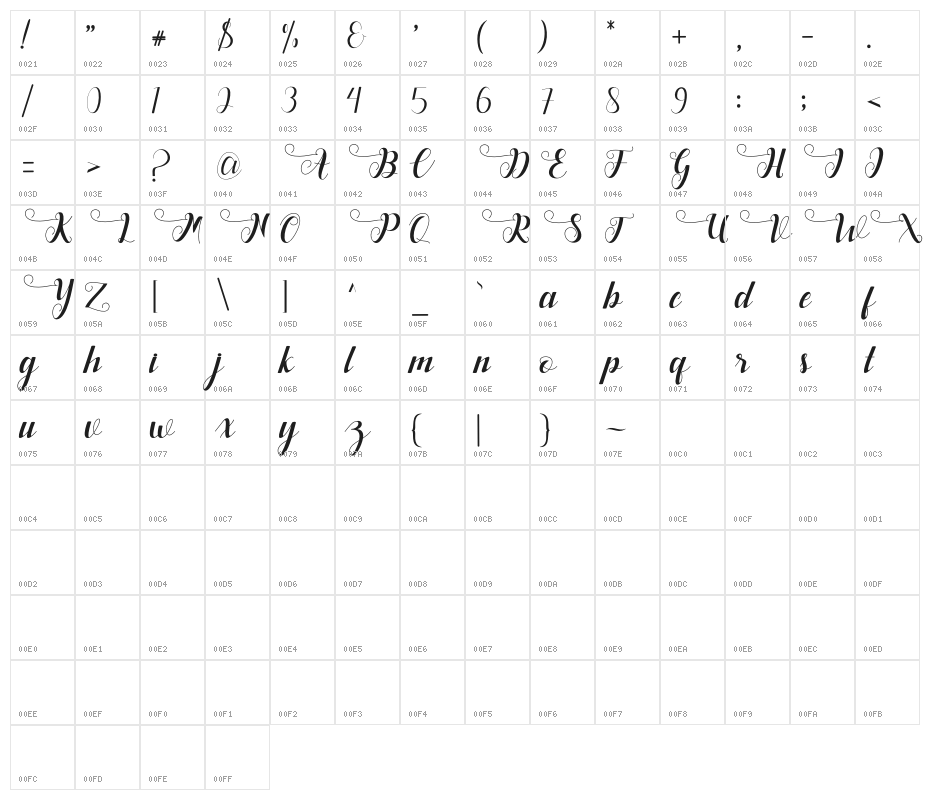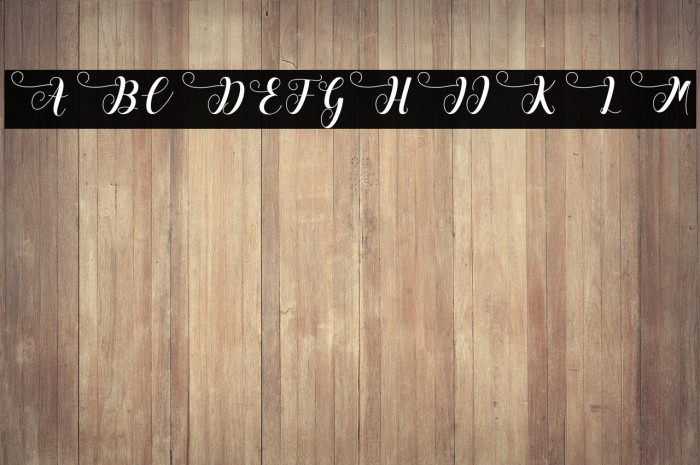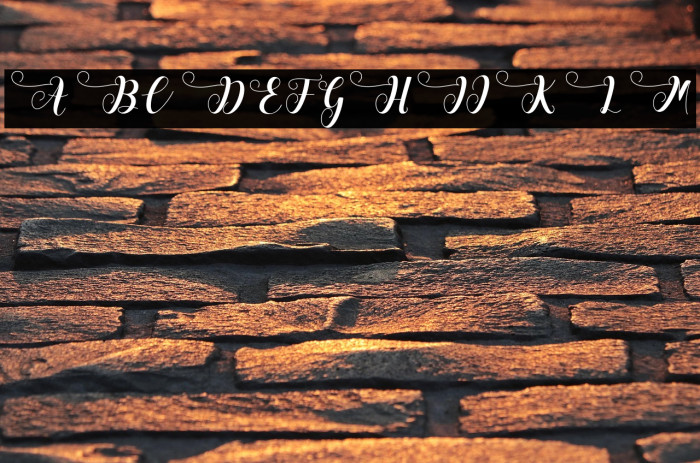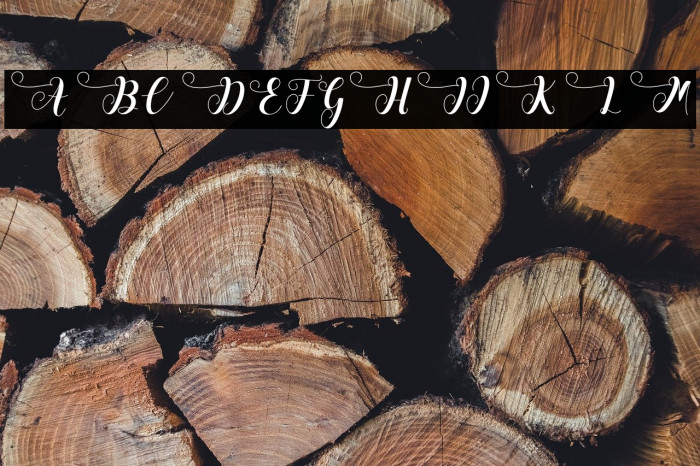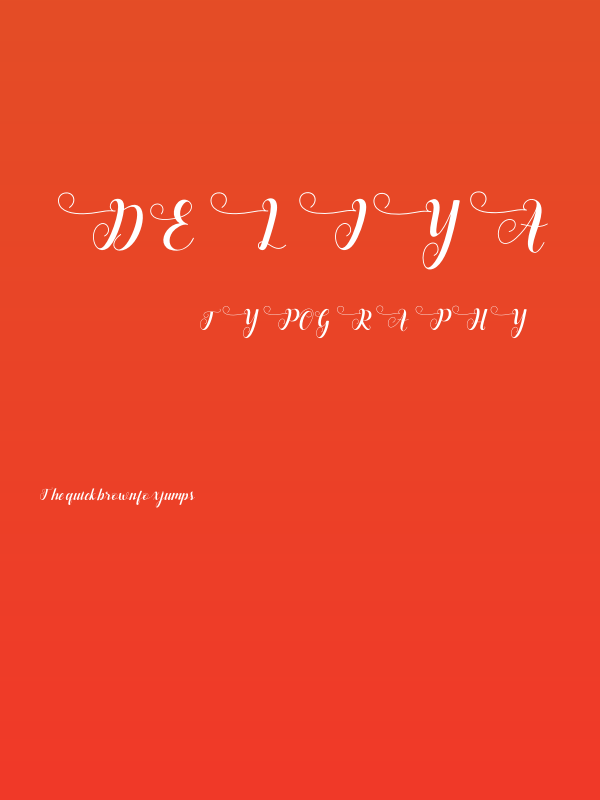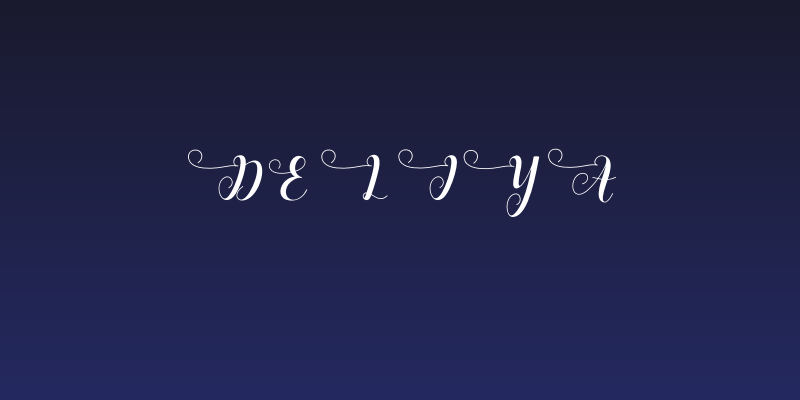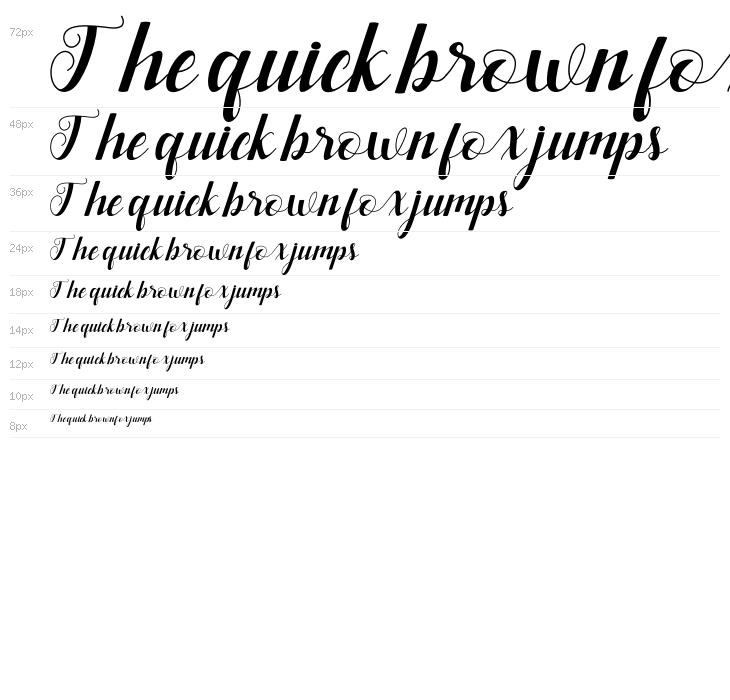
Deliya Font
Deliya Description
This elegant script font features a sophisticated and flowing design, characterized by its graceful curves and flourishes. The uppercase letters are adorned with intricate swashes, adding a touch of elegance and formality. The lowercase letters maintain a smooth and connected style, ideal for creating a seamless and harmonious appearance. The numerals are stylishly crafted, complementing the overall aesthetic of the font. Special characters are thoughtfully designed to match the font's refined style, making it suitable for a variety of decorative purposes.
| Use Case | Logos, Invitations, Decorative Text |
| Proposed Projects | Ideal for wedding invitations, elegant branding, luxury packaging, and formal event materials. |